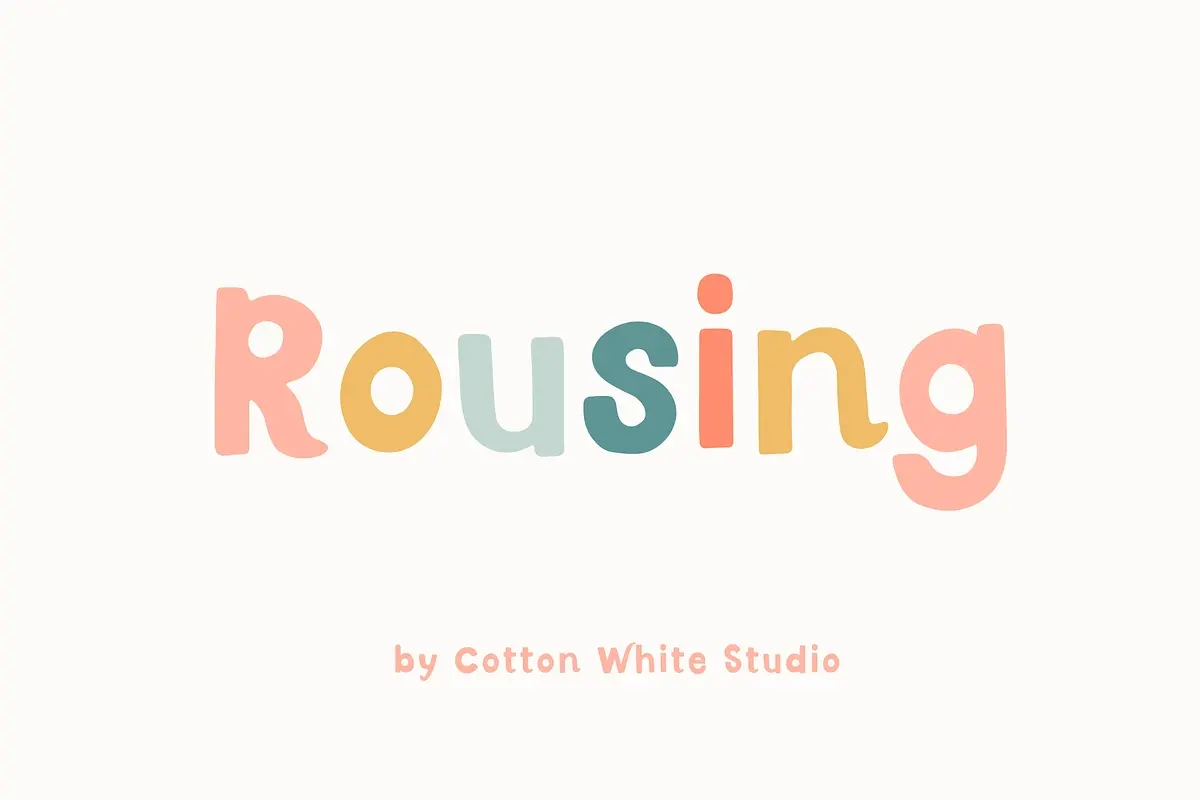
Add energy and impact to your designs with Rousing Font Free Download — a bold, dynamic typeface built to grab attention. With its strong strokes and modern aesthetic, Rousing is perfect for headlines, logos, posters, branding, event promotions, and any project that demands a powerful, confident look.
The unique letterforms in Rousing create a sense of movement and excitement, giving your typography a distinctive voice. It includes uppercase and lowercase letters, punctuation, numerals, and multilingual support — providing the flexibility you need for all your design projects.
Design with confidence and make a lasting impression. Download Rousing today and bring boldness and clarity to your typography.